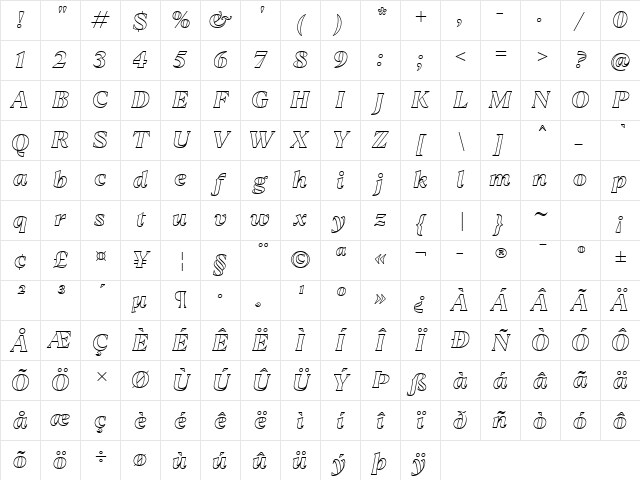
Complete TT Ramillas Trl Black Outline It glyph index. Displaying only characters natively supported by TT Ramillas Trl Black Outline It font.
TT Ramillas Trl is built around its visual character rather than neutral utility - its distinctive forms are designed to make an impression at display sizes.
Font Pairing: Pair with a clean neutral sans-serif for body copy to let TT Ramillas Trl's character lead without overwhelming the composition.
Pro Tip: Use TT Ramillas Trl exclusively at display sizes - it was designed to be seen, not read at length. Let a neutral companion handle body copy.